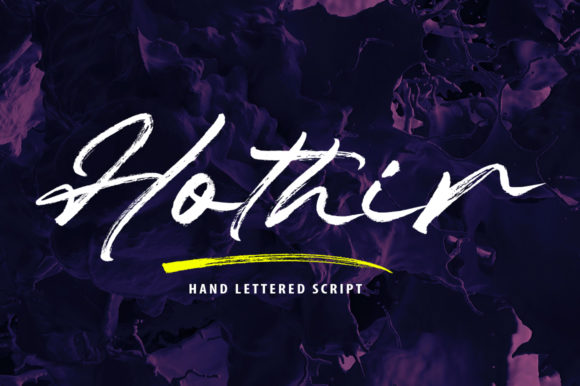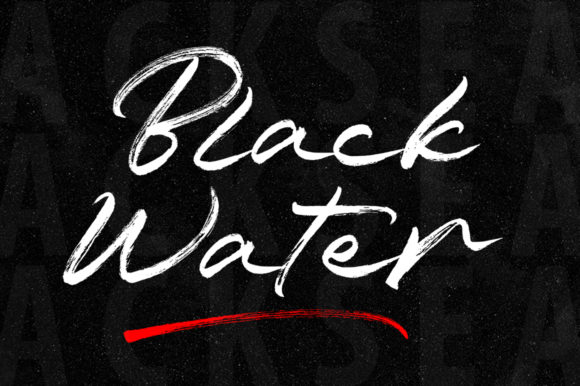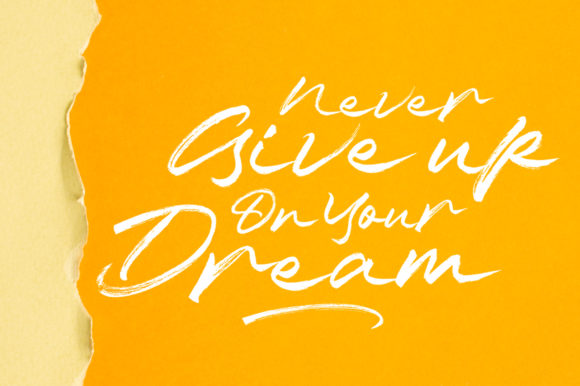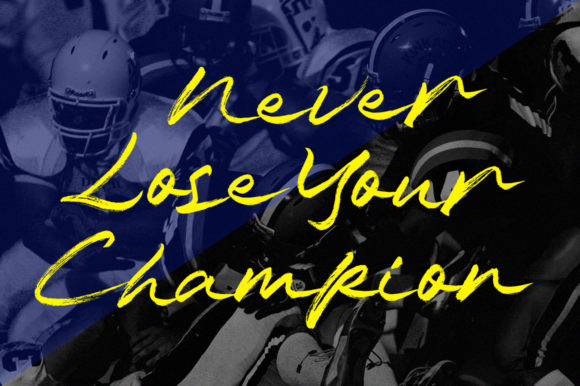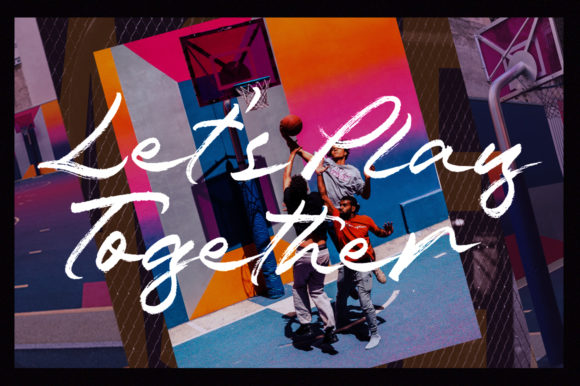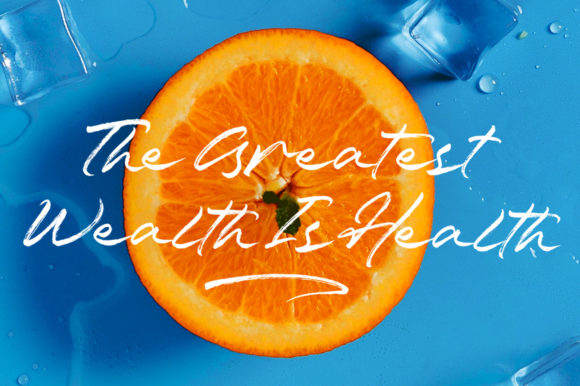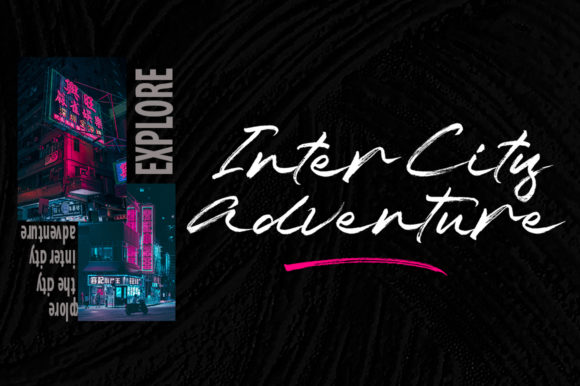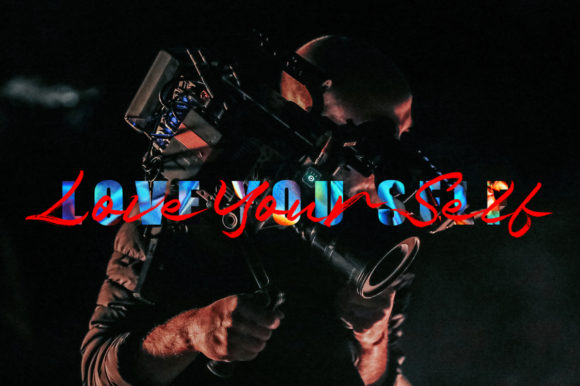
Hothir Font
About Hothir Font
Hothir is a unique handwritten font created with a brush pen. It features a strong and contemporary feel that makes it perfect for posters, flyers, social media posts and any design that requires a handwritten look!